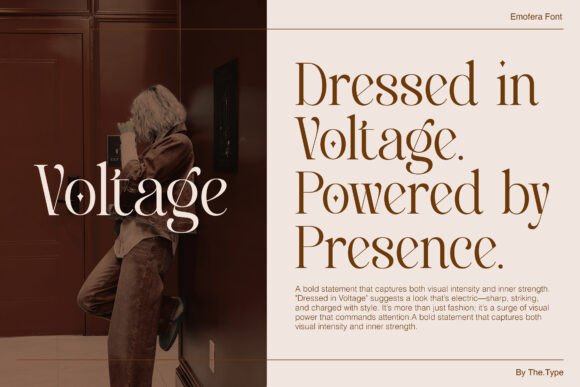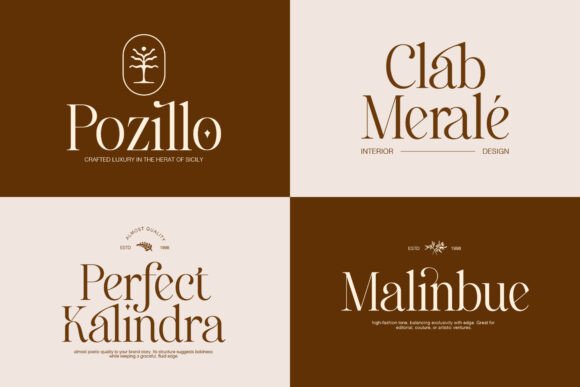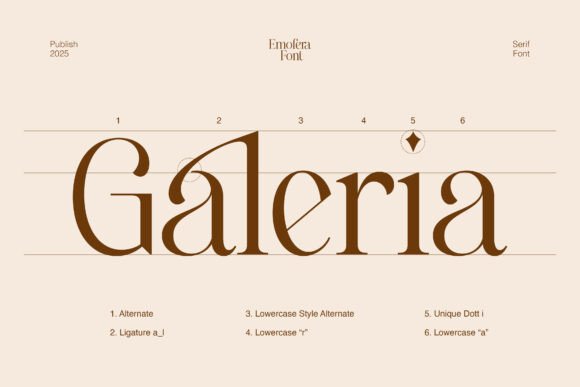
Introduction to Emofera Font
Emofera – a modern serif font inspired by the Beauty line.
This font can look more classic (conservative) display serif with stylish alternate, which is perfect for texts So same he can be more expressive, playing and more modern with alternative substitutes and ligatures, try to play with them and you will get the uniqueness in your project.
Emofera Font offers exceptional quality and versatility, making it a valuable addition to your design toolkit. Whether you’re creating for personal projects or commercial use, Emofera Font delivers professional results.